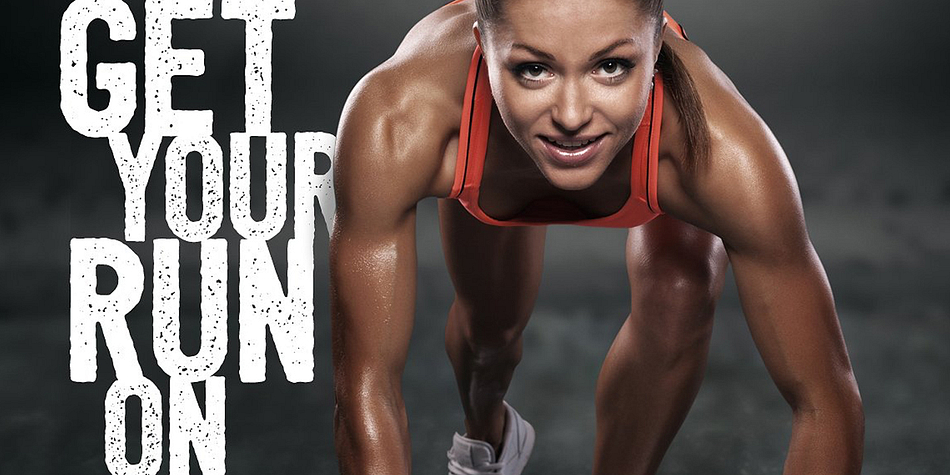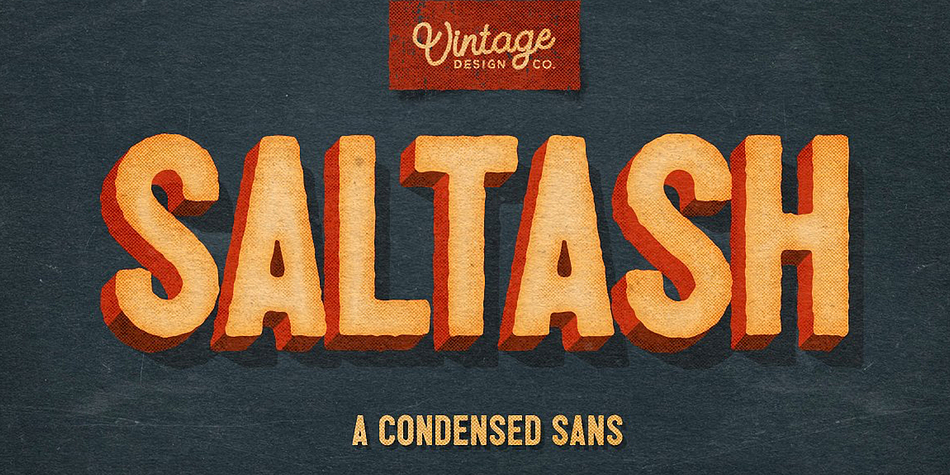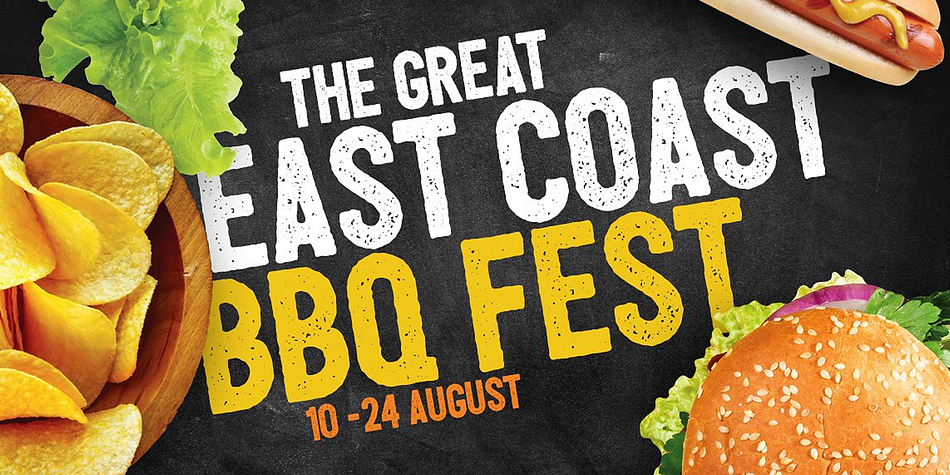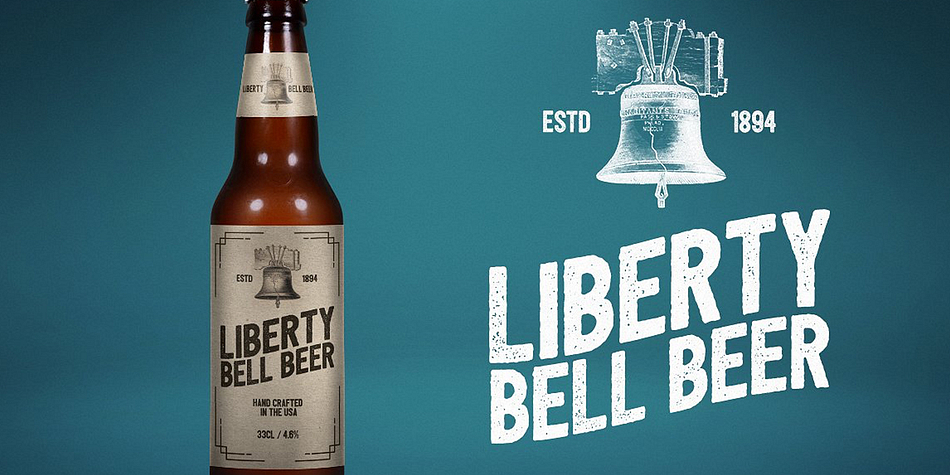
Designed by Ian Barnard, Saltash is a display sans and hand display font family. This typeface has two styles and was published by Ian Barnard.
SALTASH is a condensed sans serif typeface that comes in both rough and grunge versions. This is a great display font which looks great on media like posters, packaging, vintage logo design, clothing, etc.
SALTASH has display different grunge and roughen textures when using a combination of the upper and lower case letters to make your work look more authentic.